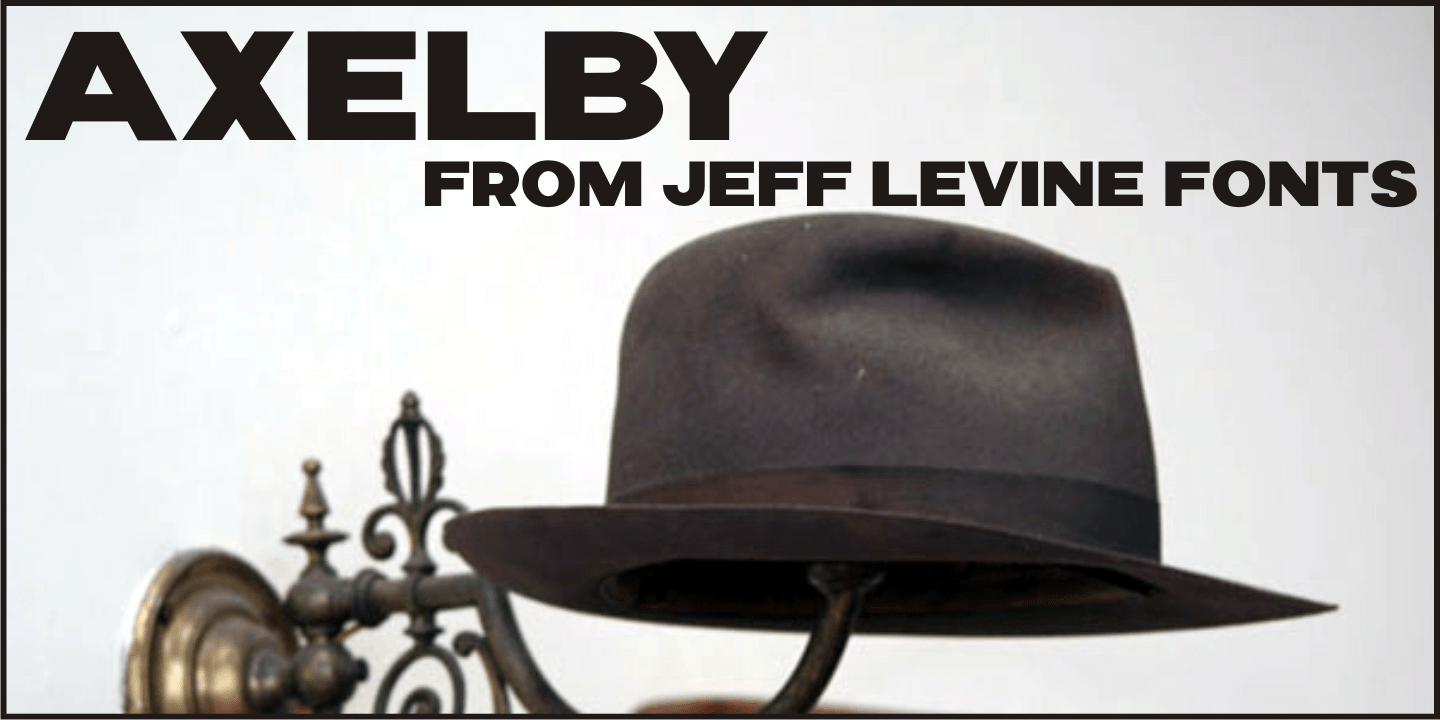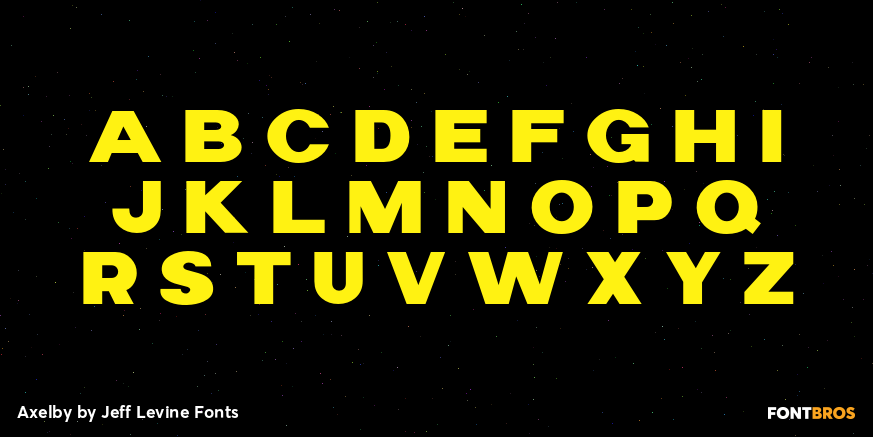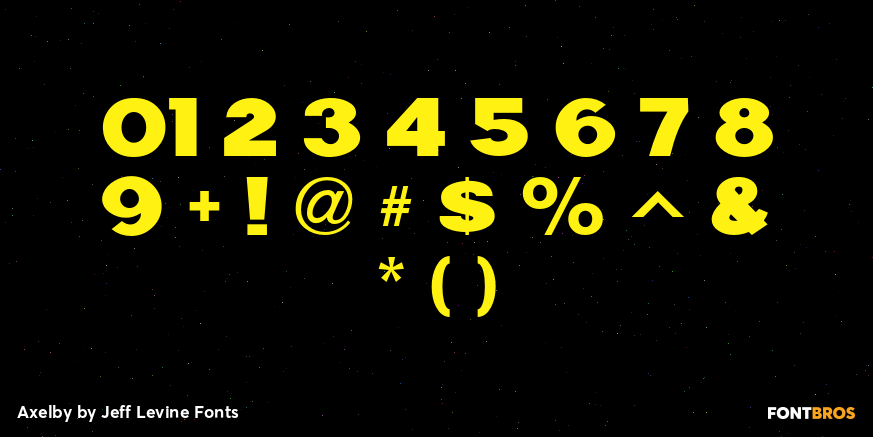
Axelby
Axelby JNL was modeled from a set of die-cut, self-adhesive cardboard letters from the 1960s. The design is reminiscent of some early wood type in the way it has letters of varying widths that do not conform to any set standard. The font is perfect for plain, easy-to-read and attention-getting headlines.